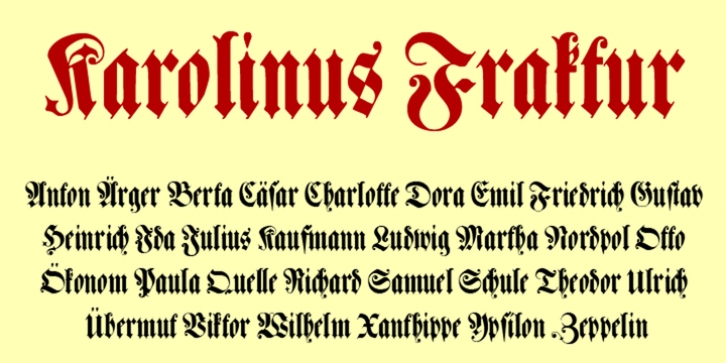
Karolinus Fraktur was designed by Lars Törnqvist and published by Cercurius. Karolinus Fraktur contains 1 style.
A slightly regularized digital version of a late Baroque Fraktur type, probably from the beginning of the 18th century, issued by the Norstedts type foundry in Stockholm in 56 point size as 'Sju petit fraktur nr 2'.
This digital font is designed for rather large sizes, at least 30 points. The font includes accented letters for all Western languages, as well as a long s and the usual Fraktur ligatures, e.g. ch, ck, st, tz.